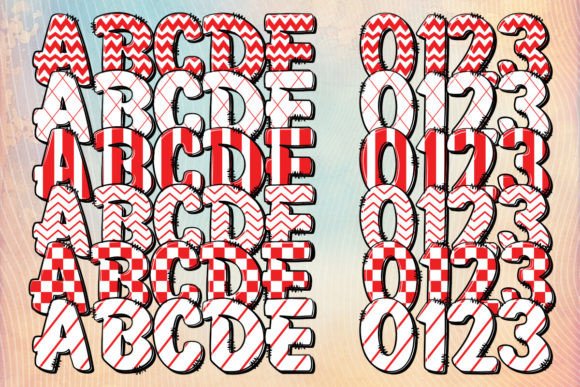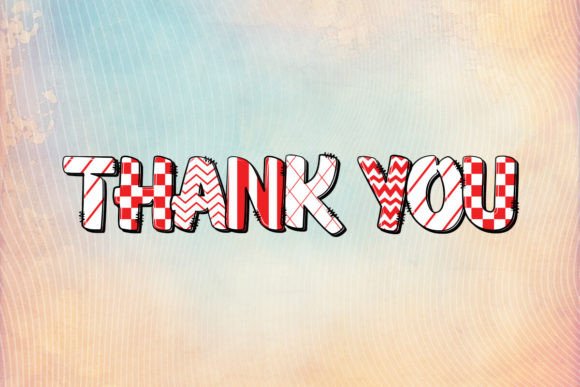
Christmas Font
Introducing the six-pack collection of Christmas Bundle Color Fonts, a must-have for seasonal celebrations. Unleash a festive flair on t-shirts, mugs, digital graphics, crafts, and greeting cards, infusing your projects with the warmth and joy of Christmas. This distinctive array includes six dynamic OTF Color Fonts, each exuding its unique character. Adorn your creations with our decorative Christmas fonts, transforming them into timeless pieces that encapsulate the holiday spirit. Let the charm of these fonts uplift your designs and captivate your audience this festivity.The black version of this font is compatible with Cricut Design Space and other cutting machines.Note! The color version of this font is only compatible with certain design programs incl. PhotoShop, Illustrator, Silhouette, and Inkscape. The OTF and/or TTF files of the color version are not compatible with Cricut. For more information on how to use this type of font please check our Ultimate Font Guide .